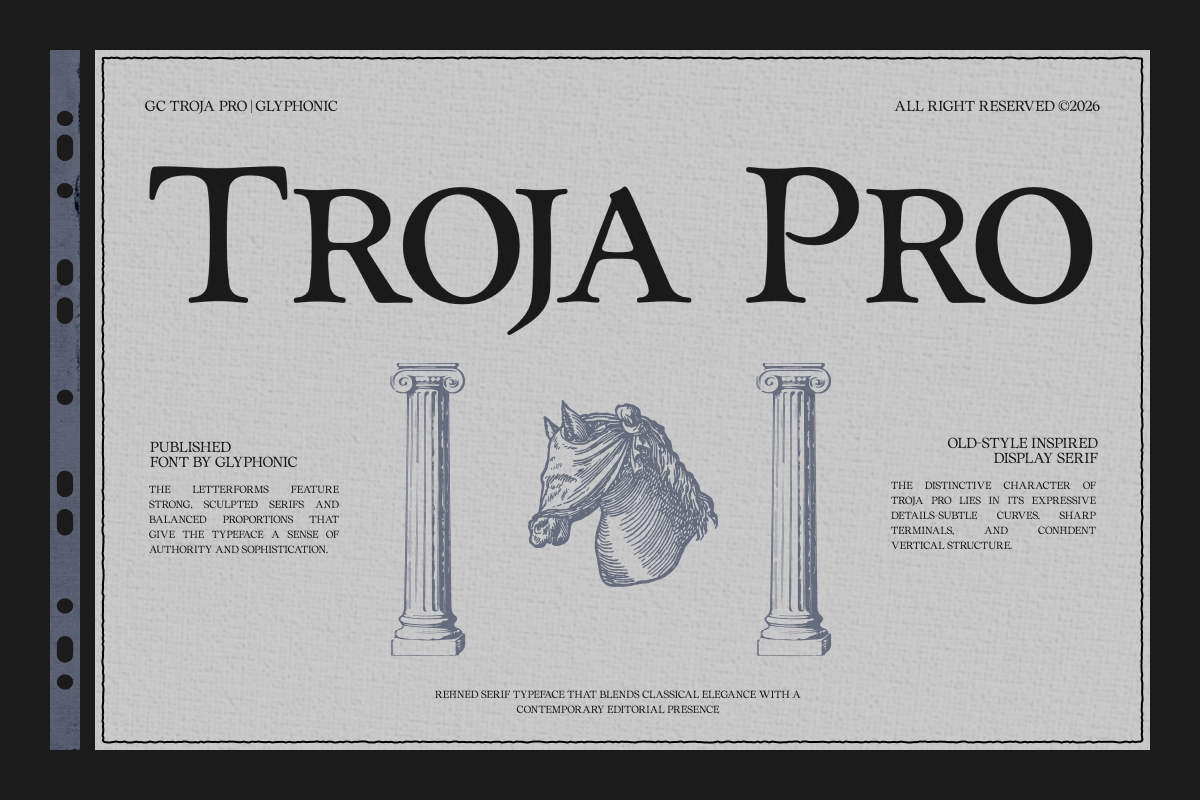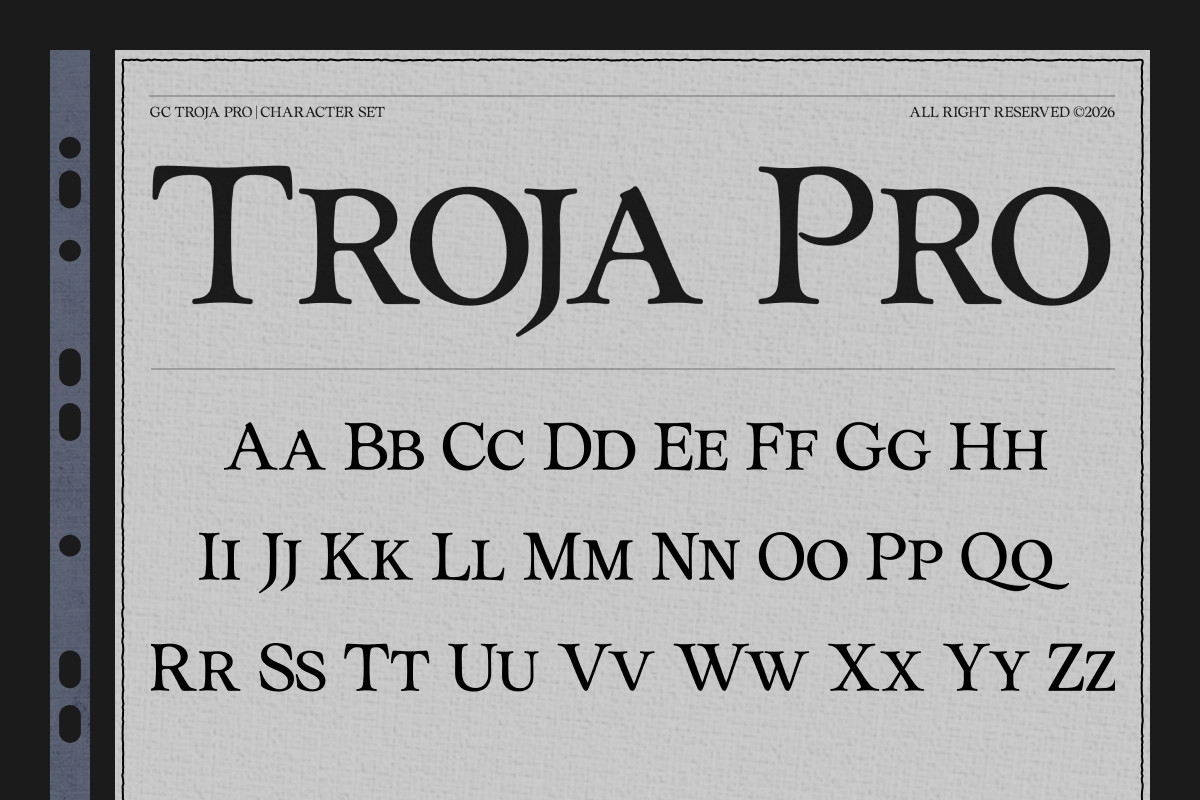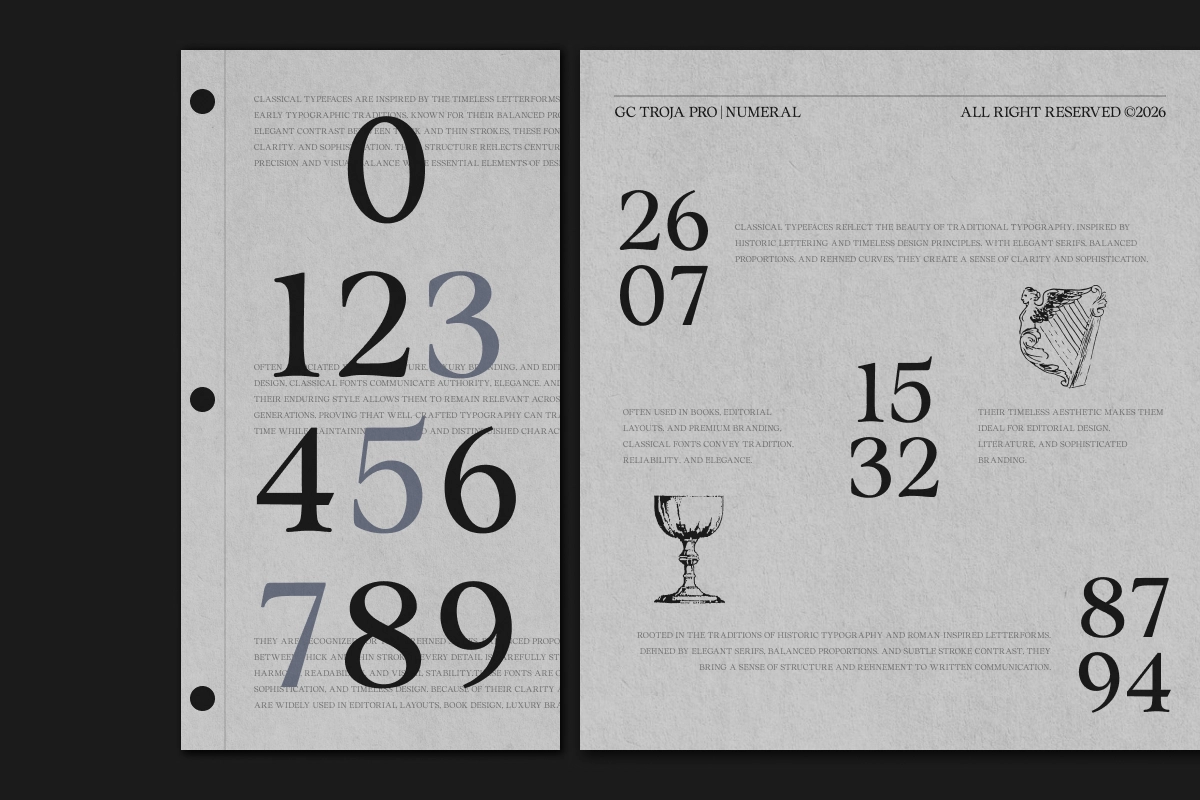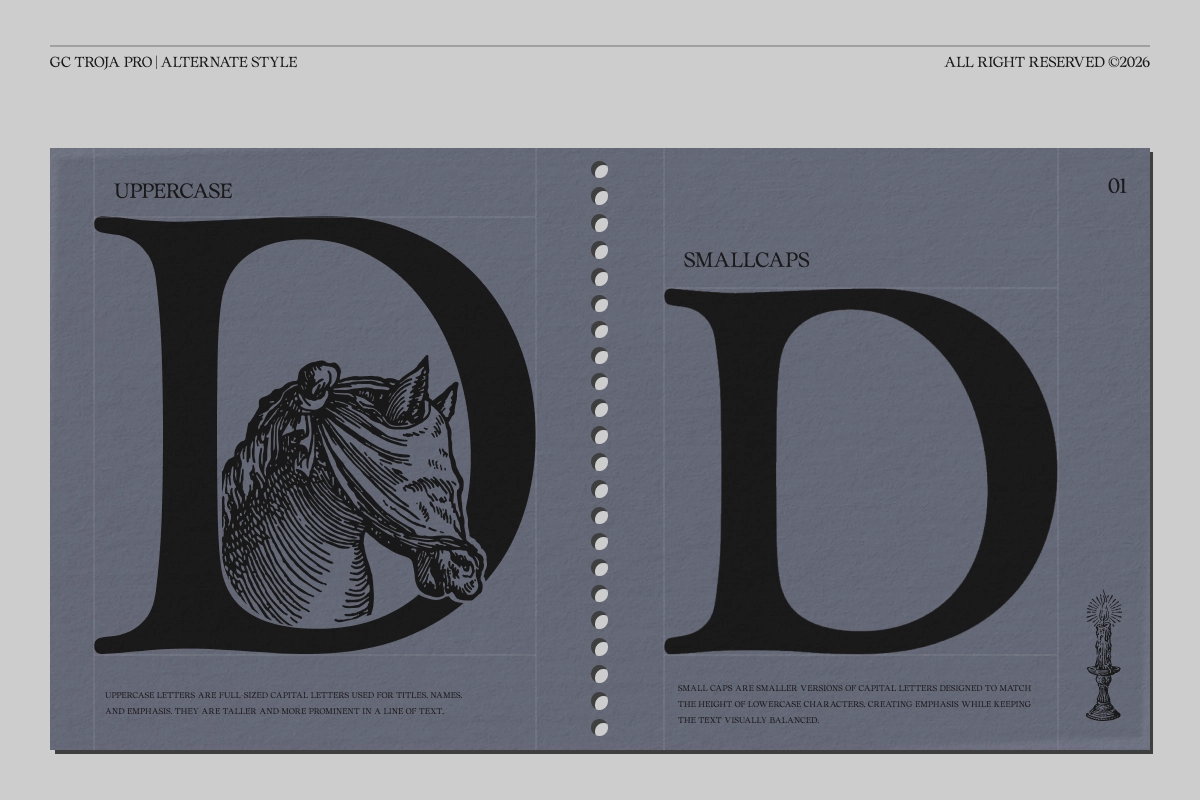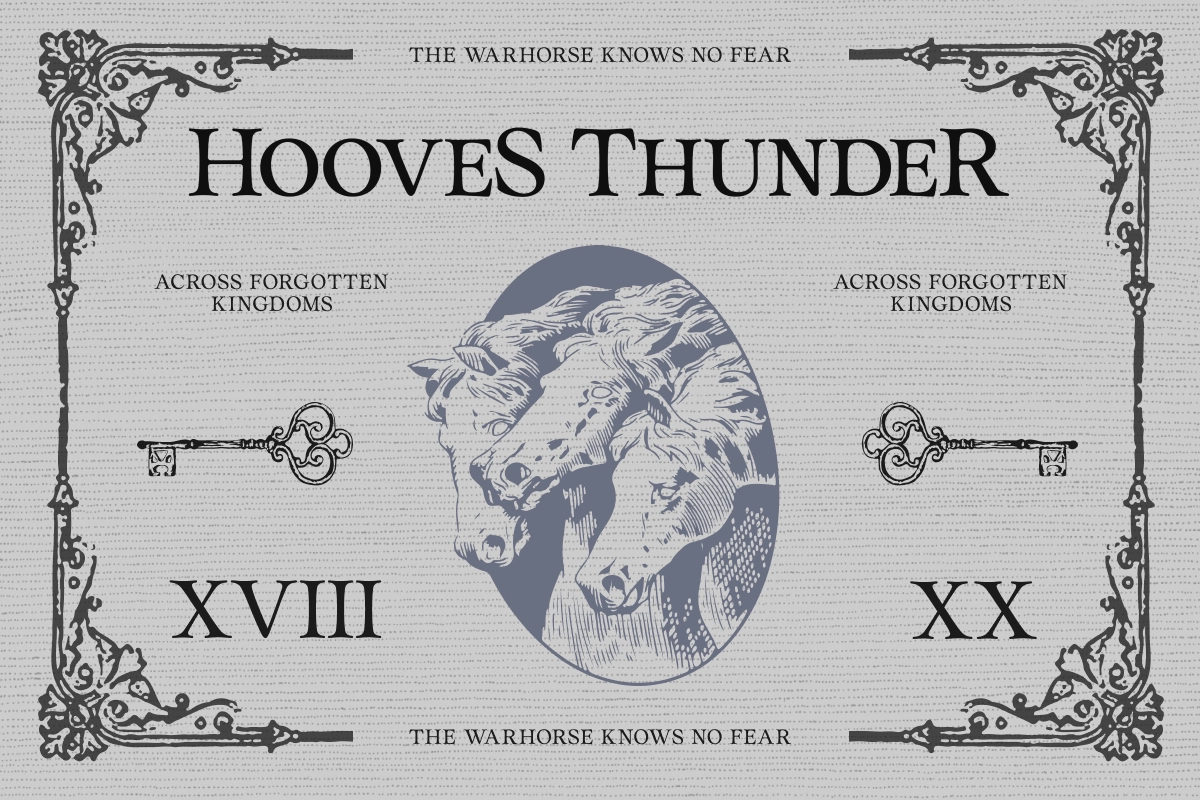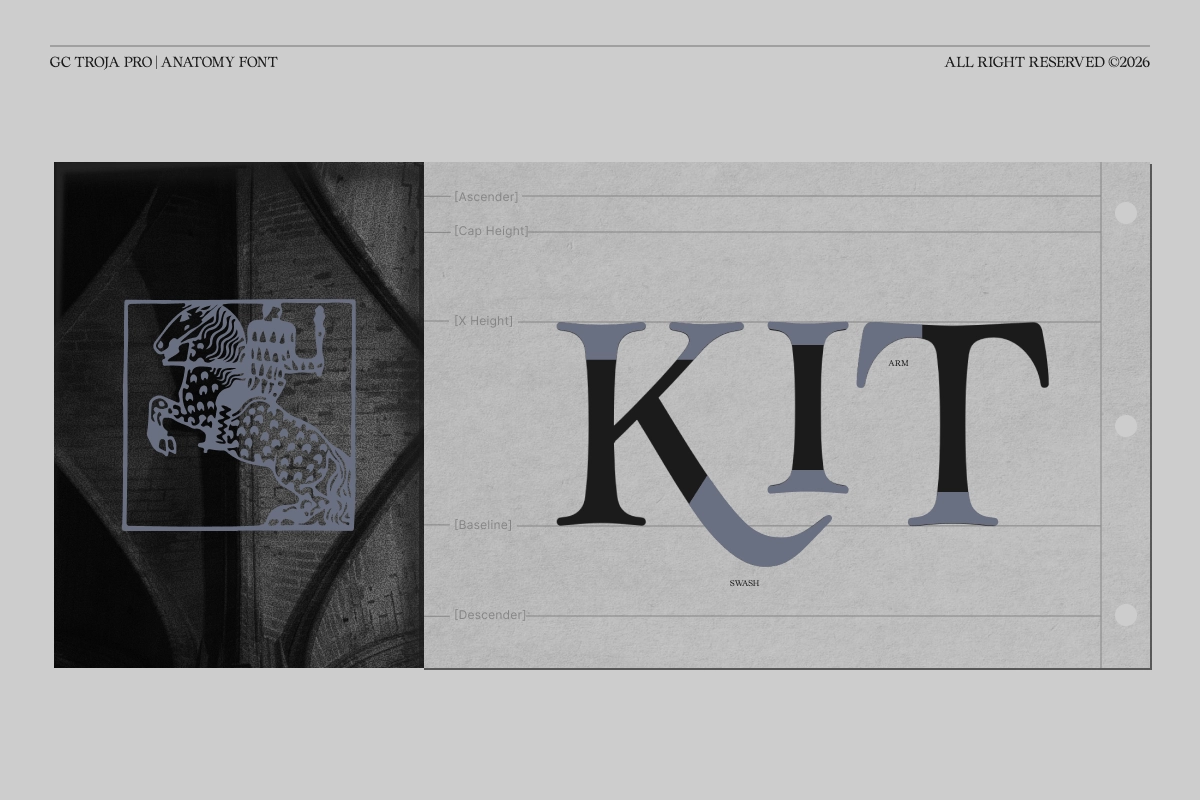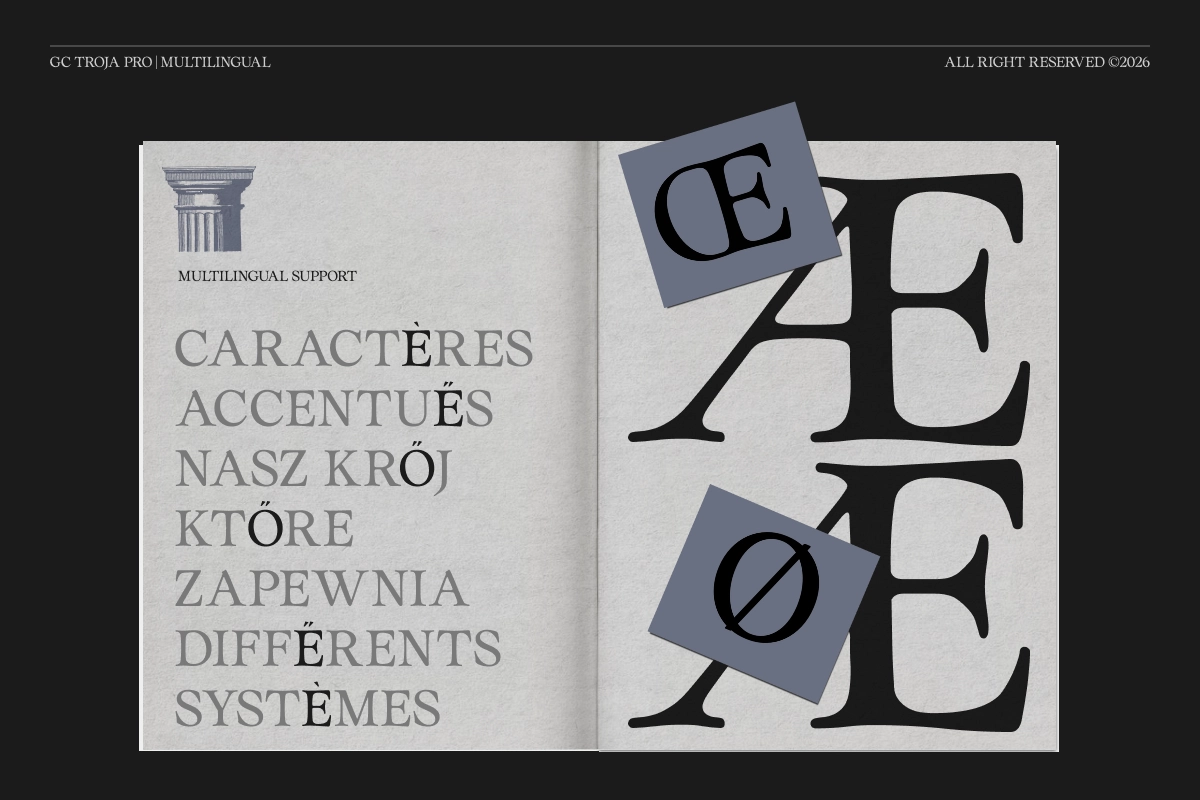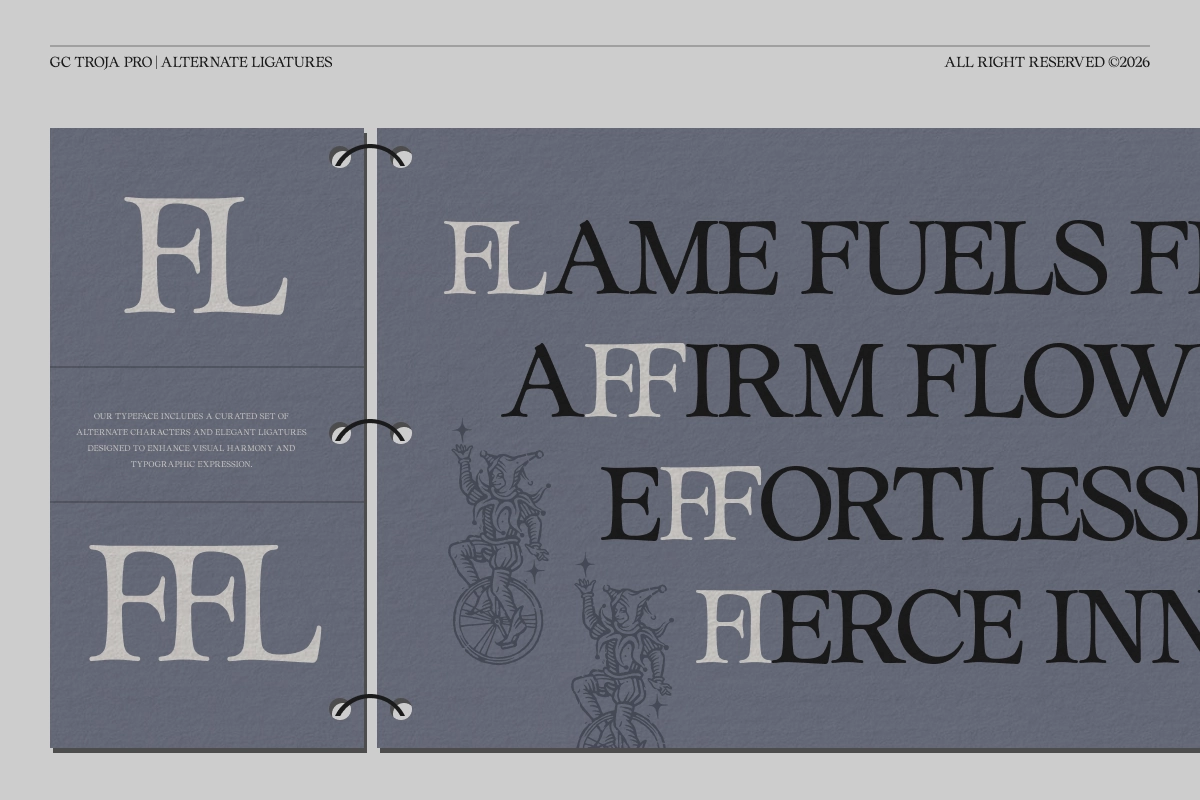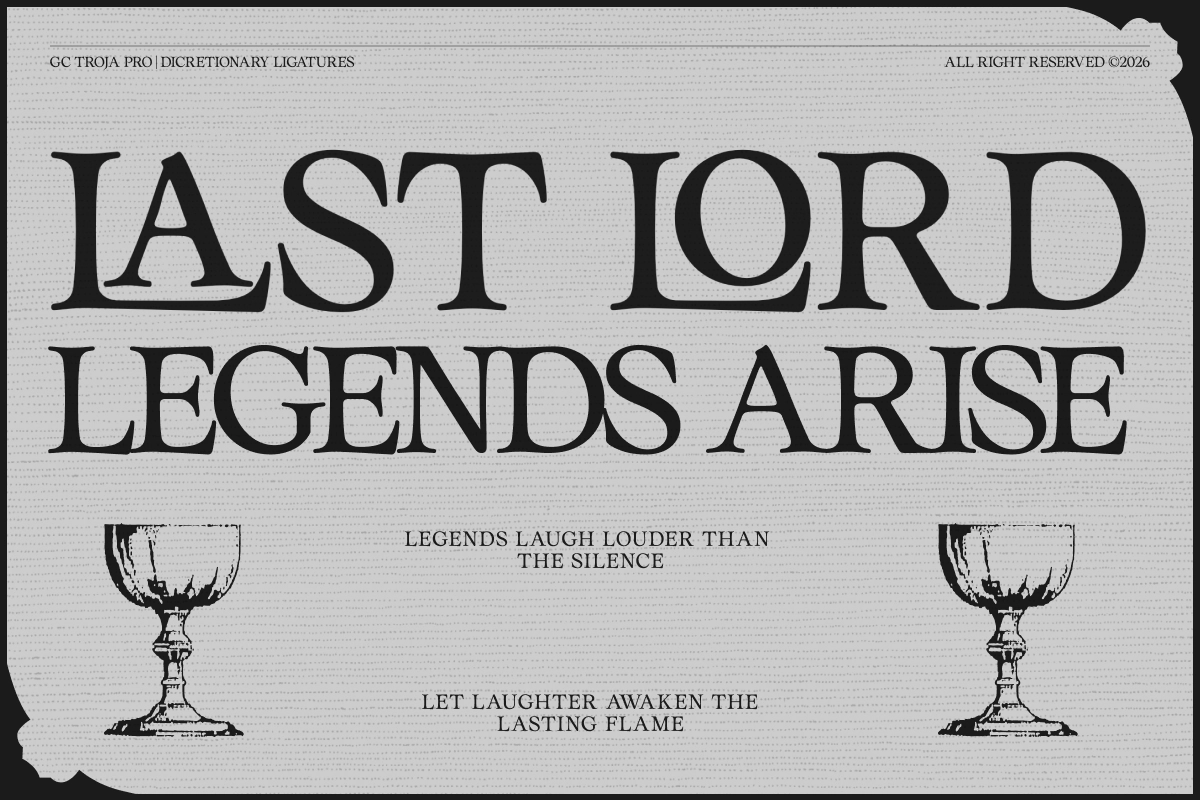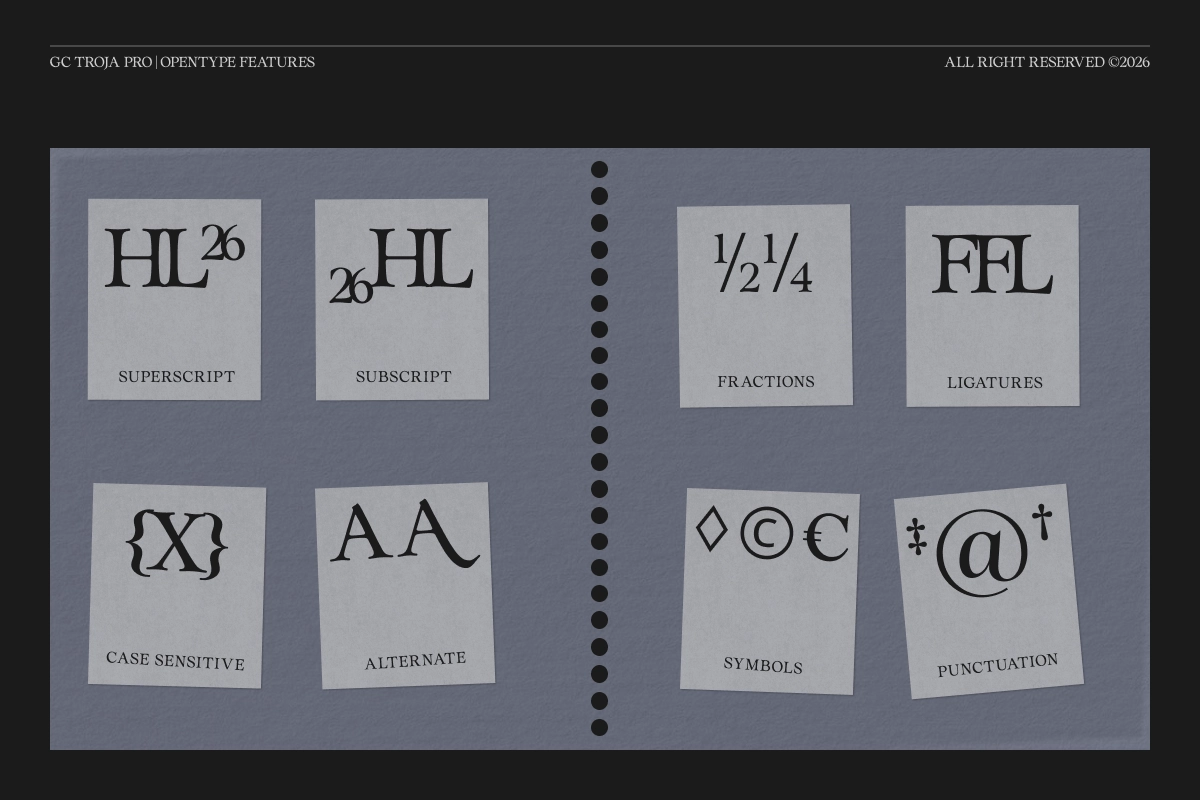
GC Troja Pro - Luxury Classic Serif Font
GC TROJA PRO
This classic serif has strong bracketed serifs, old-style proportions, sharp terminals, and a formal vertical rhythm. Its letterforms are sculpted and authoritative, with graceful curves that suit editorial layouts, heritage branding, and premium identity work.
Troja is made for luxury logos, book covers, wine labels, museum posters, hotel branding, stationery, packaging, magazine headlines, historical titles, certificate design, restaurant identities, and web headers. Alternate ligatures, discretionary ligatures, superscript, subscript, fractions, symbols, punctuation, and case-sensitive forms give designers room to create composed typography with a proper archival attitude.
- Uppercase
- Alternate Ligatures
- Discretionary Ligatures
- Superscript & Subscript
- Fractions & Symbols
- Case-Sensitive Forms
- Multilingual Support for 170+ Languages